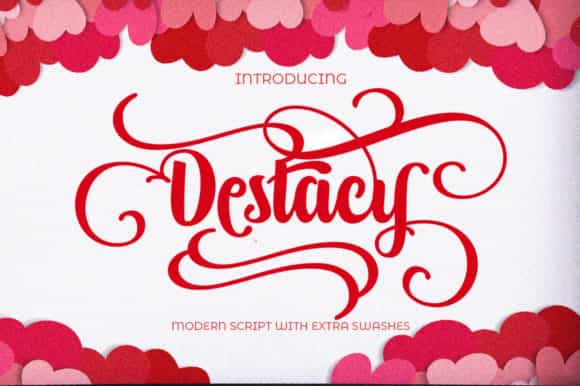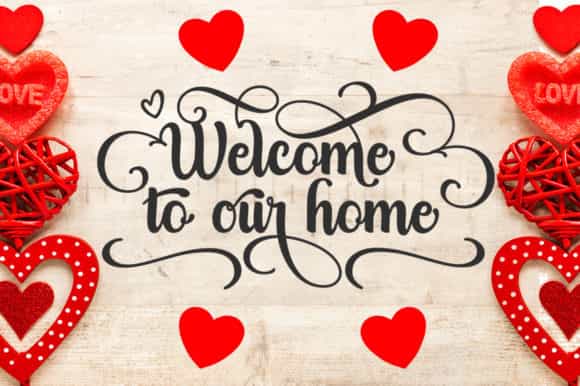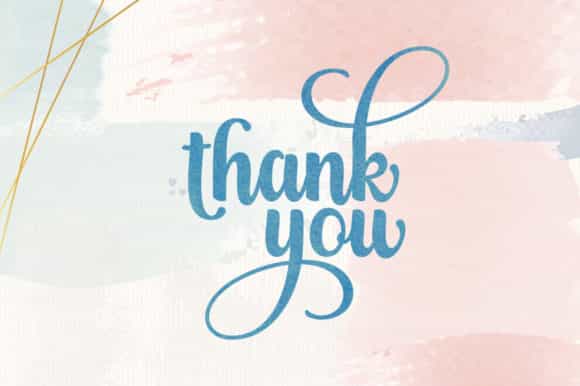
Destacy is a calligraphy script font that has a certain magic in it and was designed to be elegant. This is really a combination of the classical sophistication and the true calligraphy. It is rather the most traditional and probably the most official and reserved out of all of them.